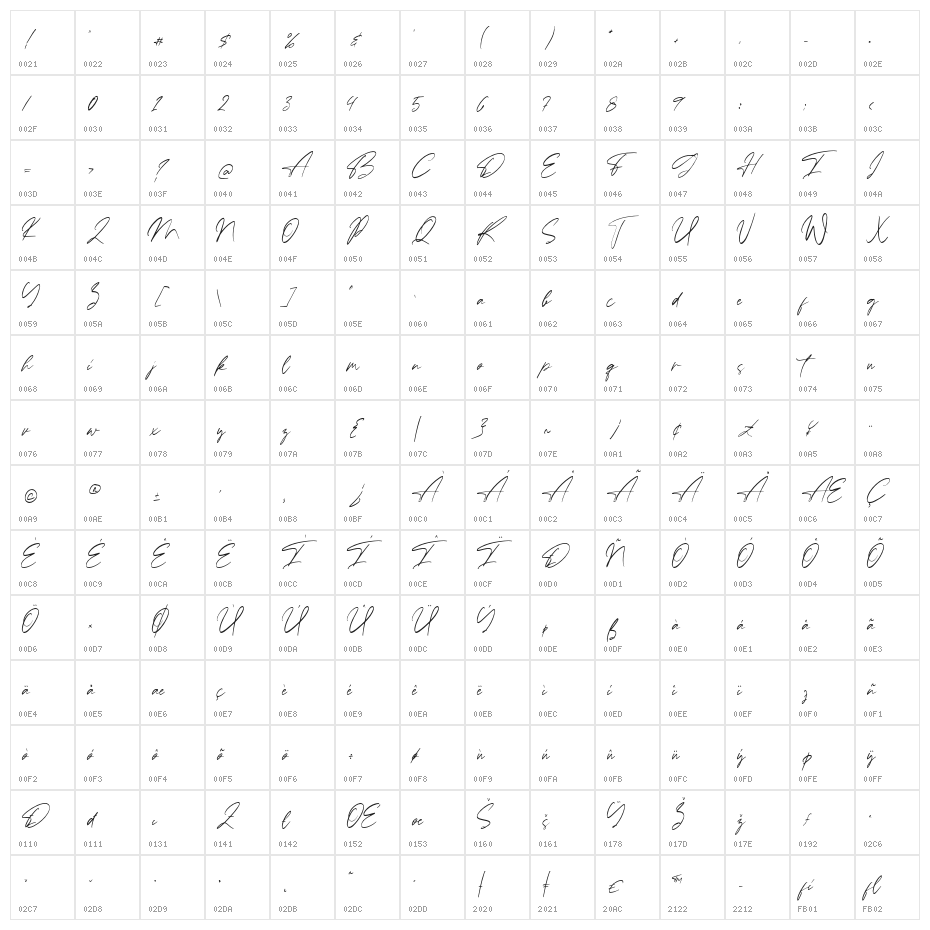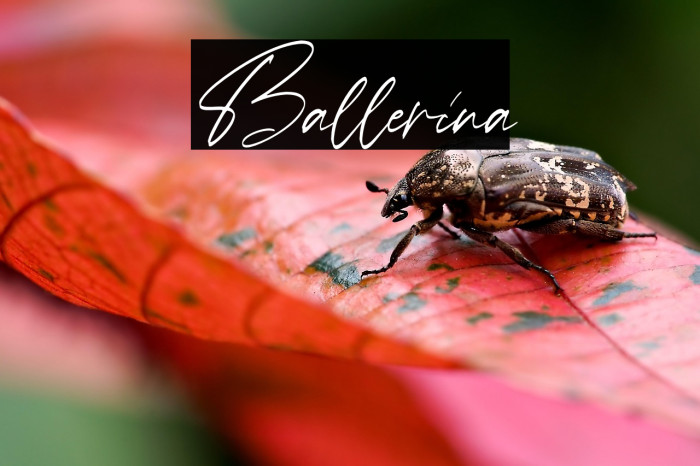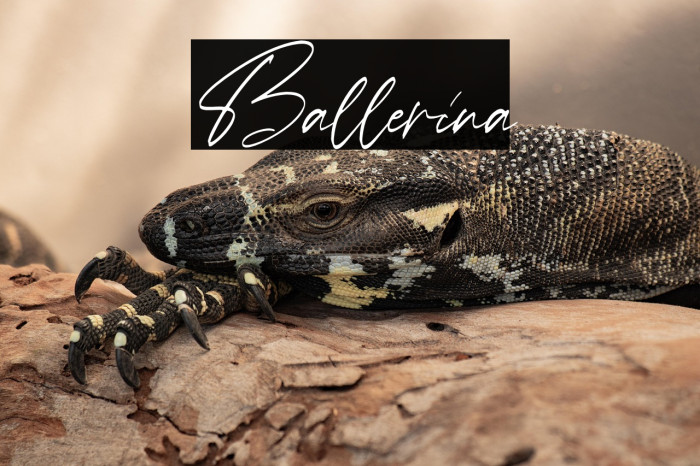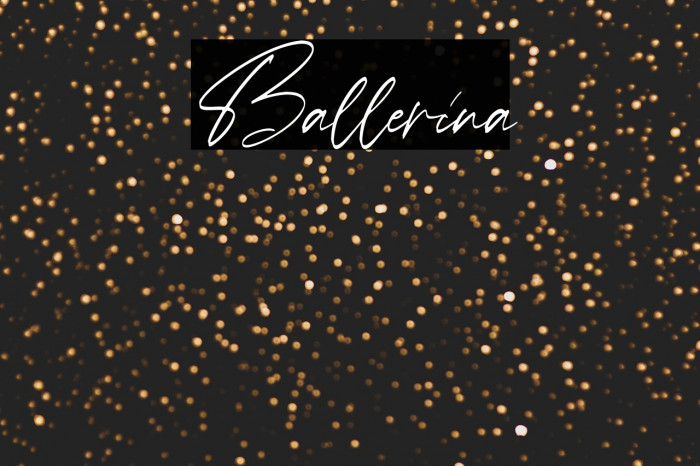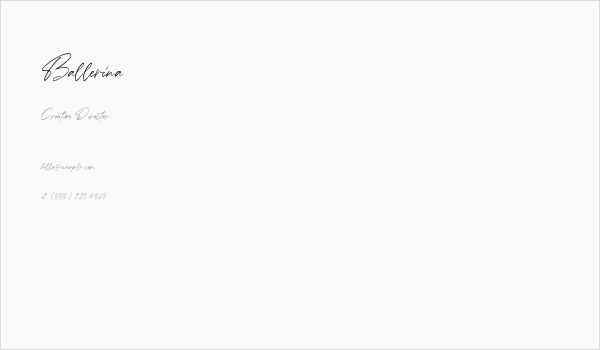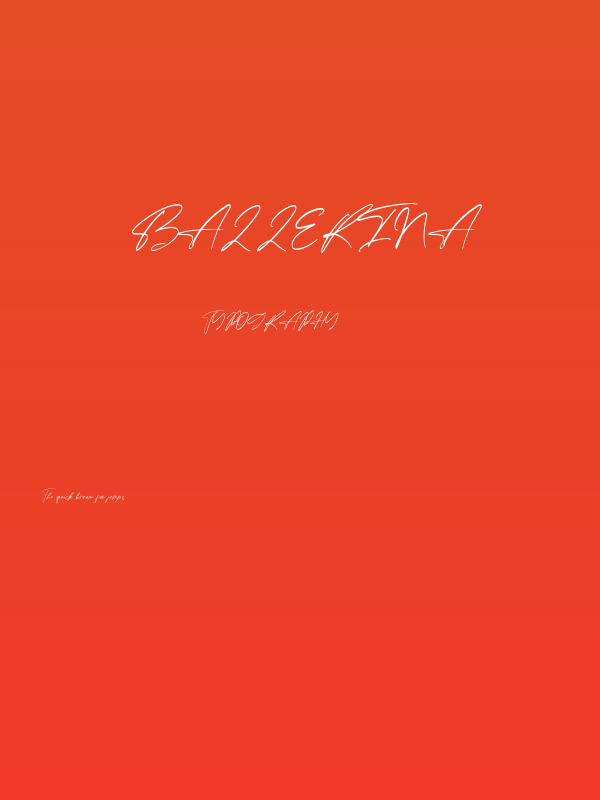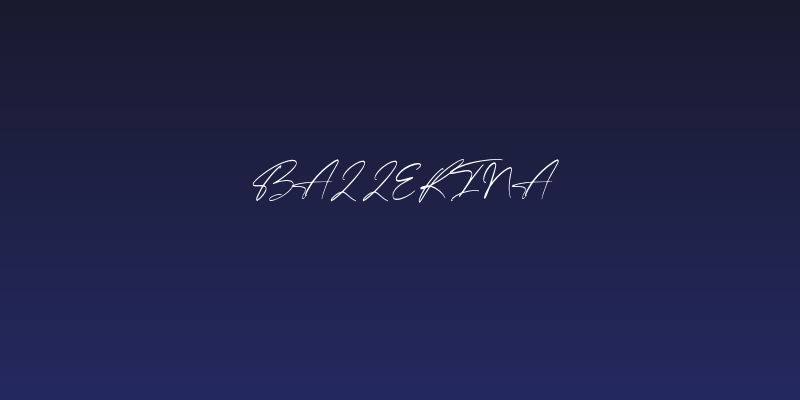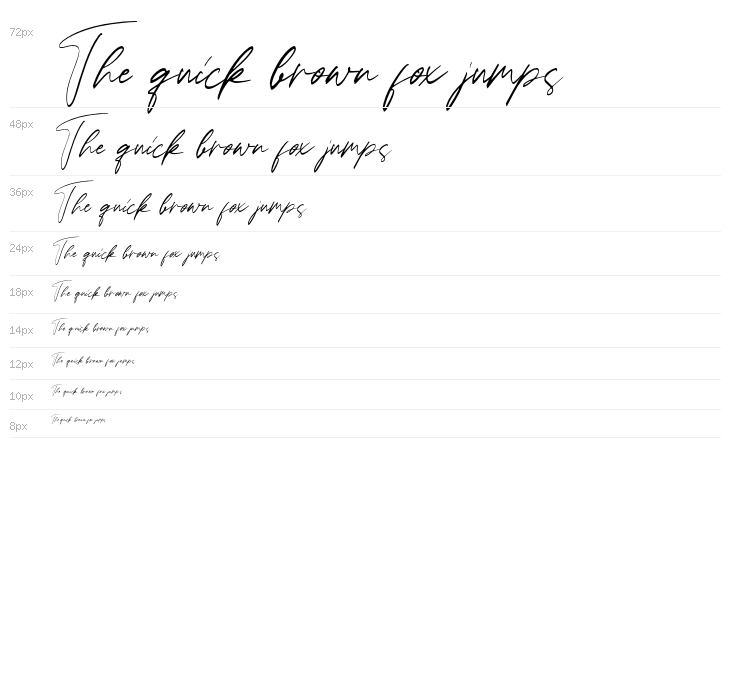
Ballerina Font
Ballerina Description
This font exudes elegance and fluidity, characterized by its cursive, handwritten style. The letters are interconnected, creating a seamless flow that mimics natural handwriting. The strokes are varied, with some letters featuring elongated ascenders and descenders, adding to its graceful appearance. The overall design is sophisticated, making it suitable for projects that require a personal touch. The numerals and special characters maintain the same fluid style, ensuring consistency across all text elements. This font is ideal for invitations, greeting cards, and other creative projects where a touch of elegance is desired.
| Proposed Projects | Ideal for wedding invitations, greeting cards, personal branding, and artistic projects. |